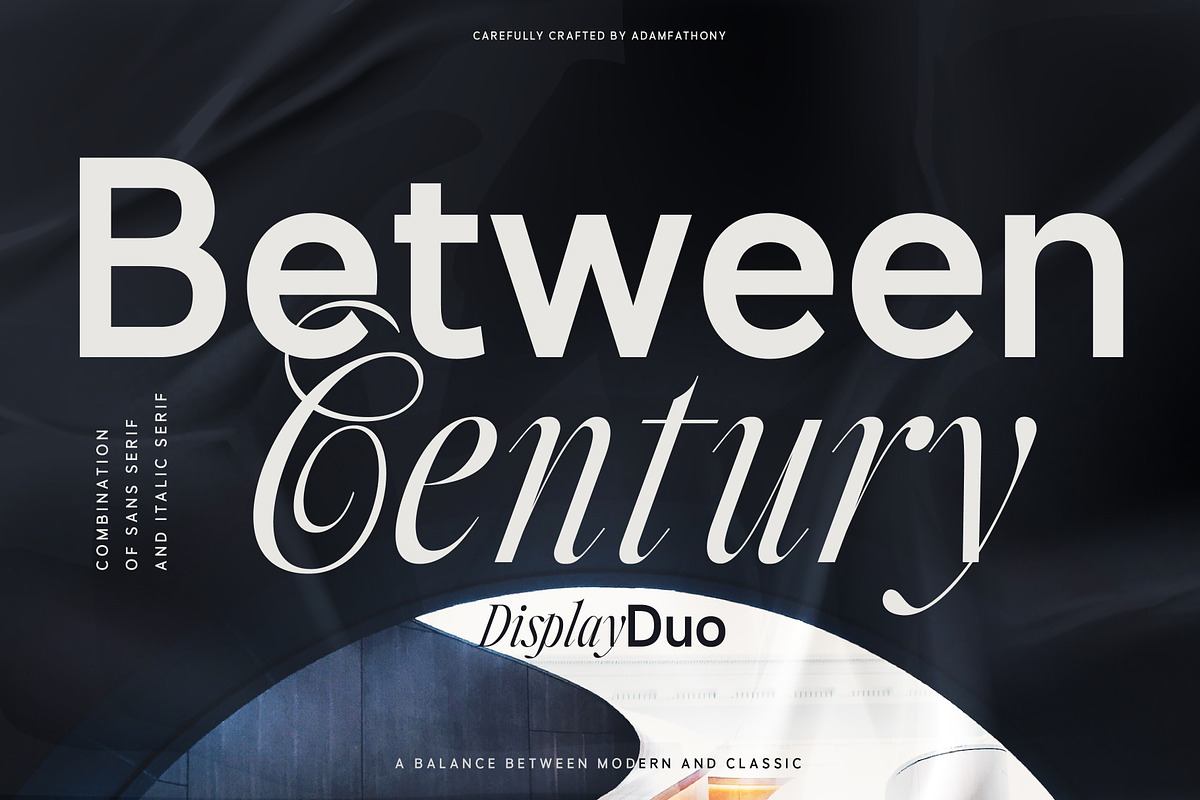
Between Century Font Free Download is a modern, elegant sans-serif typeface with clean lines and balanced proportions. Inspired by classic designs, this font combines timeless readability with contemporary aesthetics, making it perfect for both professional and creative projects such as logos, branding, websites, editorial layouts, and signage.
With its refined structure, Between Century works beautifully for body text as well as display purposes, making it versatile for various design needs. Its minimalist design ensures clarity while still offering a distinctive, stylish presence.
Enhance your typography with Between Century Font Free Download, and create sleek, professional designs that stand out with modern elegance. Perfect for designers seeking a refined and versatile sans-serif font.